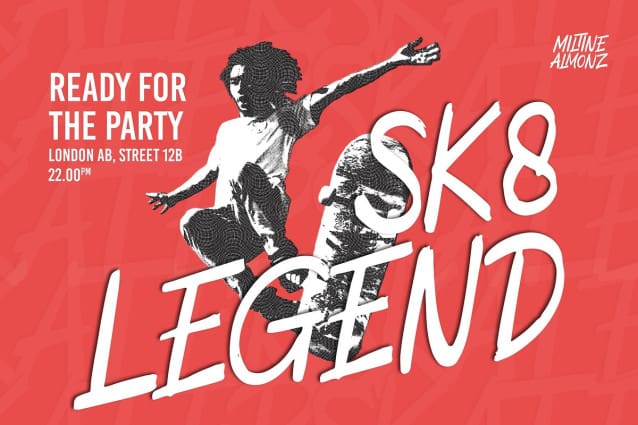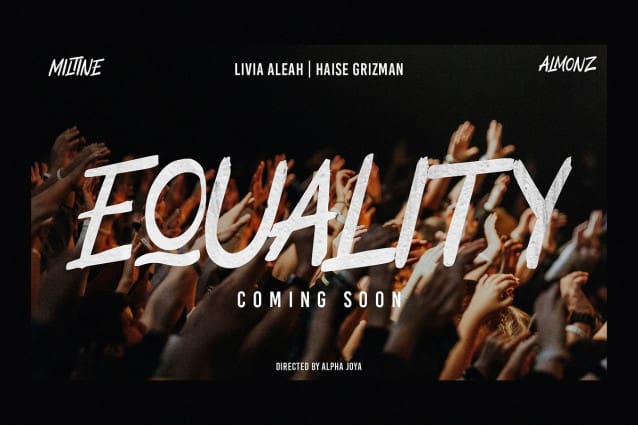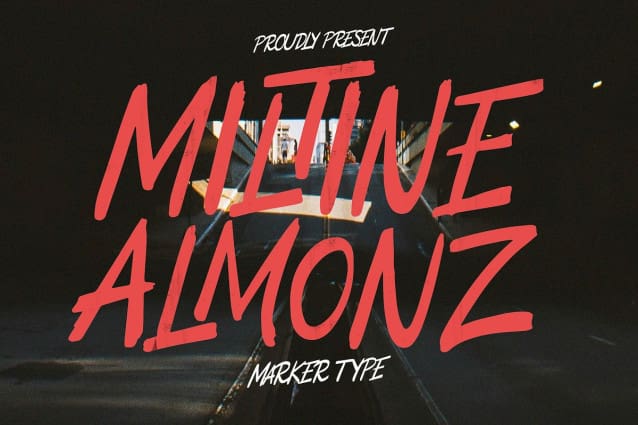
Miltine Almonz Font
Miltine Almonz Font | Brush Font, from Denustudios, suitable for any projects such as: logos, branding projects, homeware designs, product packaging, mugs, quotes, posters, shopping bags, t-shirts, book covers, name card, invitation cards, greeting cards, label, photography, watermark, special events, and all your other lovely projects that need a Brush Font taste.